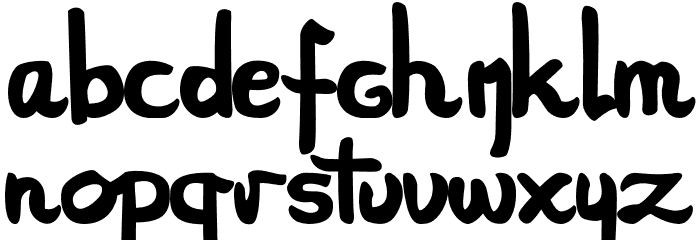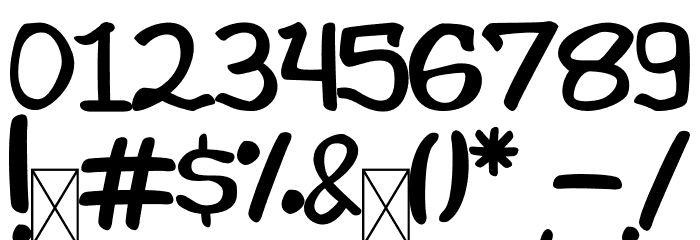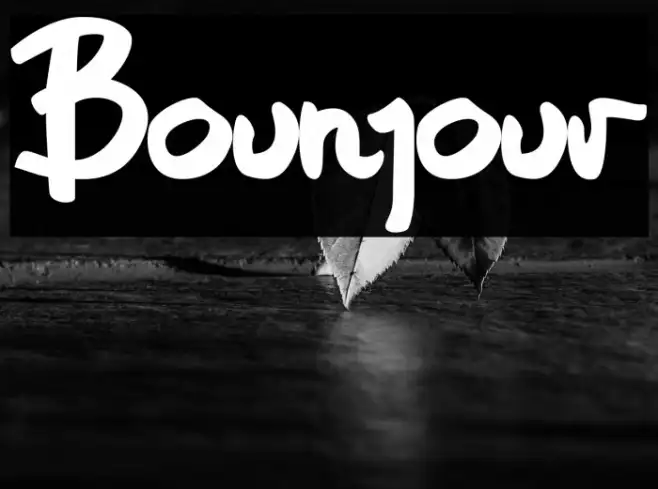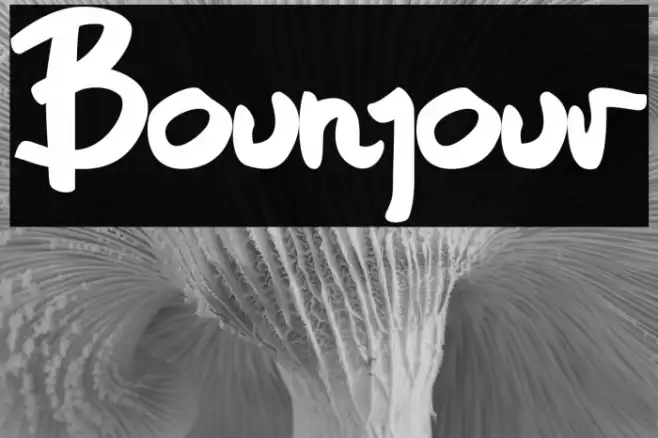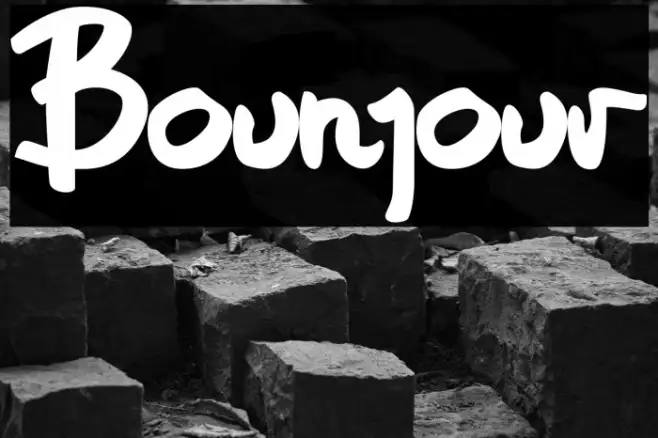
Bounjour Font
This font features a playful and energetic handwritten style, characterized by its bold and slightly irregular strokes. The letters have a casual, informal appearance, with a consistent thickness that gives it a cohesive look. The uppercase and lowercase letters maintain a uniform height, contributing to its legibility. The numbers and special characters are designed to match the overall style, ensuring a harmonious appearance across all text elements. This font's dynamic and lively nature makes it suitable for projects that require a personal touch.
A bold, playful handwritten font with consistent strokes and informal style.
- Proposed Projects: Ideal for greeting cards, children's books, playful branding, and social media graphics.
- Category: Handwritten
- Overall Style: Playful
- Use Case: Logos, Headlines, Informal Text